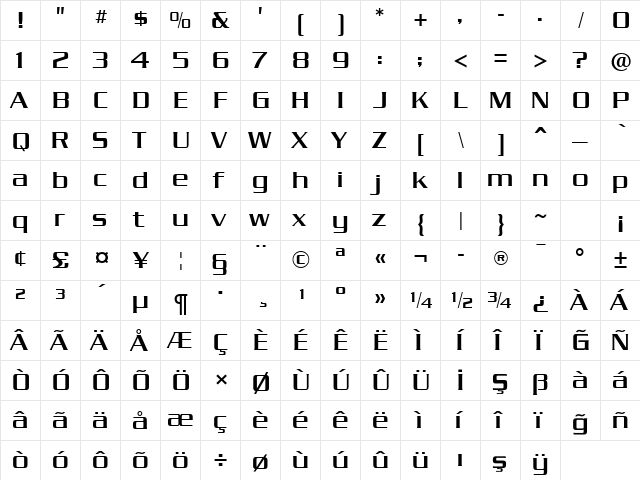
TrSah Dungeon Regular
Design Context for TrSah Dungeon Typeface
TrSah Dungeon offers clean, dependable letterforms without strong stylistic allegiance, making it a practical choice for designers who need flexibility.
Pro Tip: Pair TrSah Dungeon with a font of contrasting weight or personality to build a more expressive typographic hierarchy.